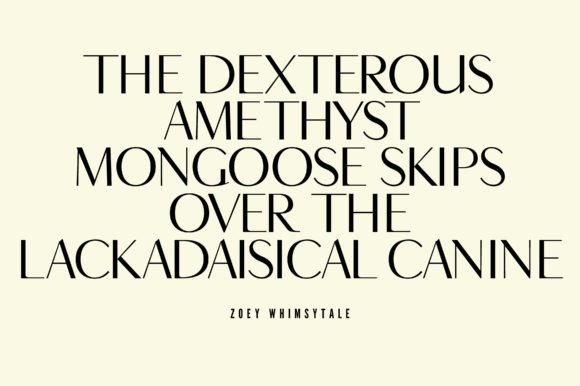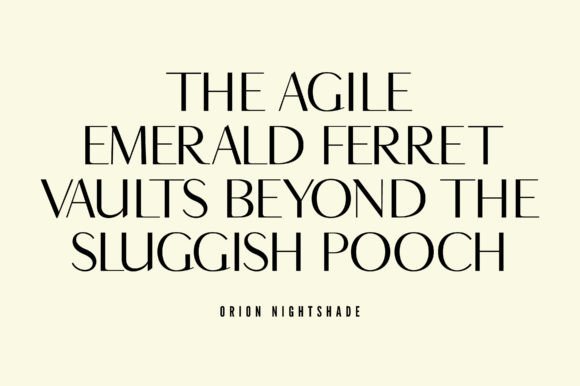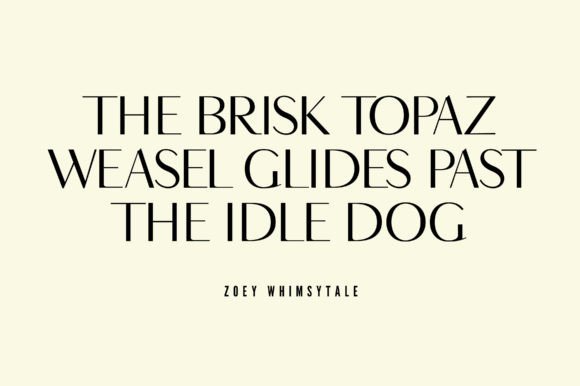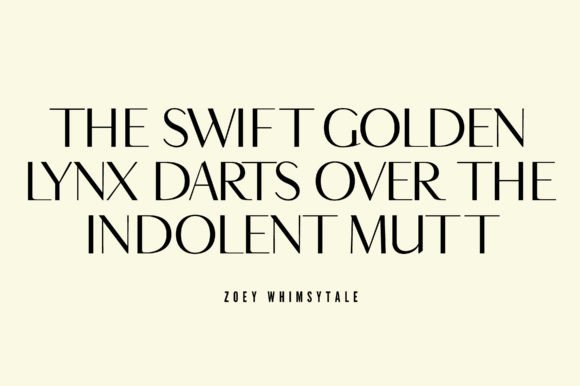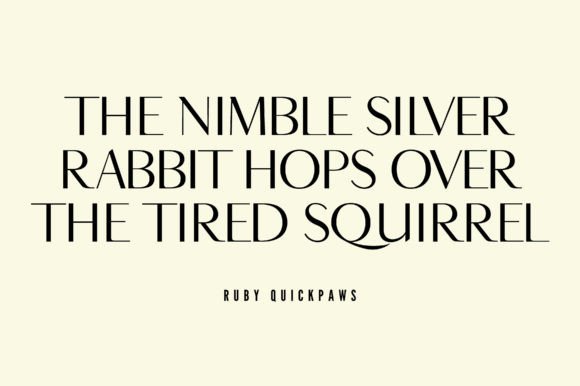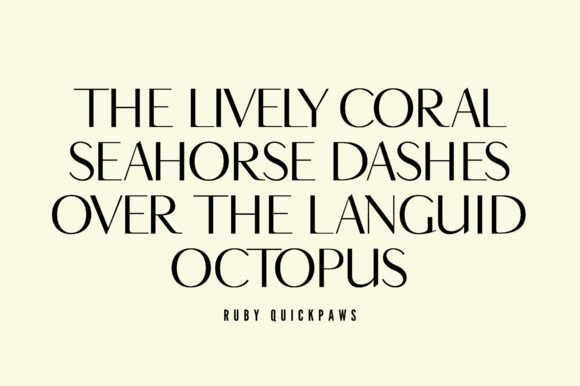
Introducing Alighieri: The Modern Sans-Serif Typeface that Redefines Elegance
In the world of typography, few fonts manage to strike a balance between timeless elegance and contemporary flair. Alighieri, a modern sans-serif typeface, is one such exceptional design that seamlessly blends classic sophistication with modern style. Crafted with meticulous attention to detail, Alighieri’s letterforms exude a sense of refinement and poise, making it the perfect choice for luxury branding, stylish publications, and high-end designs.
The Inspiration Behind Alighieri
Named after the renowned Italian poet Dante Alighieri, this typeface draws inspiration from the rich cultural heritage of Italy. Alighieri’s design is deeply rooted in the principles of traditional typography, yet it boasts a distinctly modern aesthetic that sets it apart from other sans-serif fonts. The result is a typeface that feels both classic and cutting-edge, capable of elevating any design project to new heights.
Key Features of Alighieri
So, what makes Alighieri such a standout typeface? Here are some of its key features:
- Sophisticated letterforms: Alighieri’s letterforms are carefully crafted to convey a sense of elegance and sophistication. Each character is designed to be highly legible, ensuring that your message is conveyed with clarity and precision.
- Balanced lines: The typeface features balanced lines that create a sense of harmony and stability. This balance makes Alighieri perfect for use in a wide range of design applications, from luxury branding to stylish publications.
- Versatility: Alighieri is an incredibly versatile typeface that can be used in a variety of design contexts. Whether you’re creating a high-end brand identity, a stylish magazine, or a sophisticated website, Alighieri is the perfect choice.
Using Alighieri in Design Projects
Alighieri’s versatility makes it an excellent choice for a wide range of design projects. Here are some ways you can use Alighieri to elevate your designs:
- Luxury branding: Alighieri’s sophisticated letterforms and balanced lines make it perfect for luxury branding projects. Use it to create a high-end brand identity that exudes elegance and refinement.
- Stylish publications: Alighieri is also ideal for stylish publications, such as fashion magazines, art catalogs, and high-end newspapers. Its classic beauty and modern flair make it perfect for conveying a sense of sophistication and style.
- Web design: Alighieri’s legibility and versatility make it an excellent choice for web design projects. Use it to create a sophisticated website that showcases your brand’s elegance and refinement.
Why Choose Alighieri?
With so many typefaces available, why choose Alighieri? Here are just a few reasons why Alighieri stands out from the crowd:
- Timeless elegance: Alighieri’s classic beauty ensures that your designs will never go out of style. Its timeless elegance makes it perfect for creating designs that will stand the test of time.
- Modern flair: Alighieri’s modern aesthetic ensures that your designs will feel fresh and contemporary. Its sleek lines and sophisticated letterforms make it perfect for creating designs that are both stylish and modern.
- Versatility: Alighieri’s versatility makes it an excellent choice for a wide range of design projects. Whether you’re creating a luxury brand identity or a stylish publication, Alighieri is the perfect choice.
In conclusion, Alighieri is a modern sans-serif typeface that seamlessly blends timeless elegance and contemporary flair. Its meticulously crafted letterforms exude sophistication, making it perfect for luxury branding, stylish publications, and high-end designs. With balanced lines and versatility, Alighieri brings a touch of classic beauty to any project, ensuring your message is conveyed with clarity and poise. Choose Alighieri to transform your designs into timeless masterpieces that capture both tradition and modernity.
Whether you’re a designer, craftsperson, or simply someone who appreciates beautiful typography, Alighieri is an excellent choice for any design project. Its unique blend of classic elegance and modern style makes it perfect for creating designs that are both sophisticated and stylish. So why wait? Discover the beauty of Alighieri today and elevate your designs to new heights.